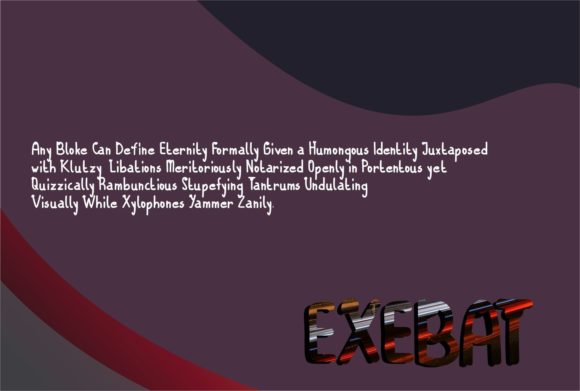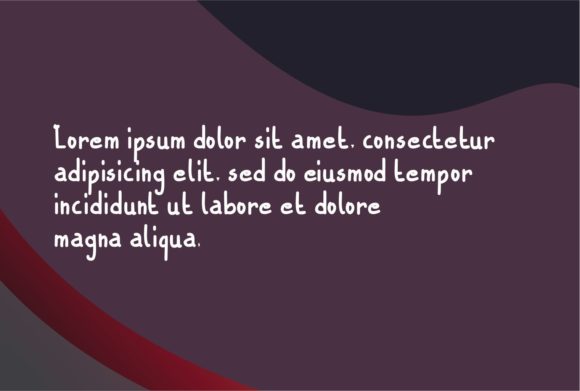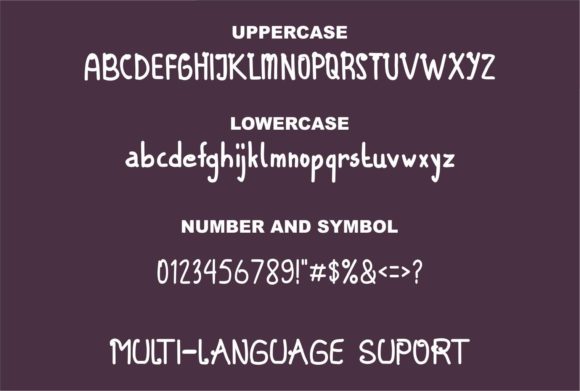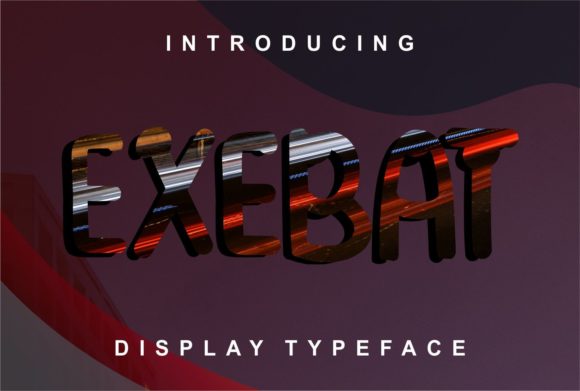
Introducing Exabat Font: Elevate Your Designs with Clean and Adaptable Typography
In the world of design, typography plays a crucial role in conveying messages, evoking emotions, and creating visual identities. A well-chosen font can make all the difference in transforming a design from ordinary to extraordinary. If you’re a designer, craftsperson, or simply someone who appreciates beautiful typography, you’re in for a treat. Say hello to Exabat Font, a clean and adaptable display font that’s about to take your designs to the next level.
What is Exabat Font?
Exabat Font is a modern, sans-serif display font designed to make a statement. Its clean lines, elegant curves, and versatile style make it perfect for a wide range of applications, from posters and flyers to branding, packaging, and digital media. Whether you’re looking to create eye-catching headlines, bold titles, or sophisticated body text, Exabat Font is the ideal choice.
Key Features of Exabat Font
- Clean and Adaptable: Exabat Font boasts a clean and minimalist design, making it easy to read and versatile enough to adapt to various design contexts.
- Display Quality: With its high-quality display capabilities, Exabat Font shines on any medium, from large-format posters to small-scale business cards.
- Endless Possibilities: Exabat Font’s flexibility means you can experiment with various design styles, from modern and sleek to elegant and sophisticated.
Why Choose Exabat Font?
- Unique yet Legible: Exabat Font strikes the perfect balance between uniqueness and legibility, ensuring your message gets across clearly while standing out from the crowd.
How to Use Exabat Font in Your Designs
Ready to unlock the full potential of Exabat Font? Here are some design ideas to get you started:
- Posters and Flyers: Use Exabat Font as a headline or title font to grab attention and draw viewers in.
- Branding and Logo Design: Leverage Exabat Font’s versatility to create a cohesive visual identity for your brand.
- Digital Media: Apply Exabat Font to your social media graphics, blog posts, and website headers to elevate your online presence.
Tips and Tricks for Getting the Most Out of Exabat Font
To take your Exabat Font designs to the next level, keep these expert tips in mind:
- Experiment with Font Sizes: Play with different font sizes to create visual hierarchy and add depth to your designs.
- Pair with Other Fonts: Combine Exabat Font with complementary fonts to add contrast and create visually appealing typography.
- Pay Attention to Kerning: Adjust kerning settings to ensure optimal spacing and readability.